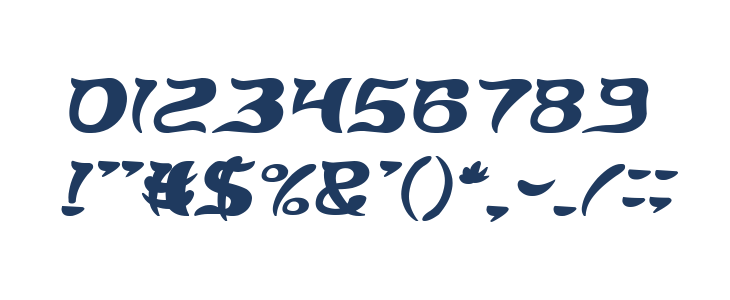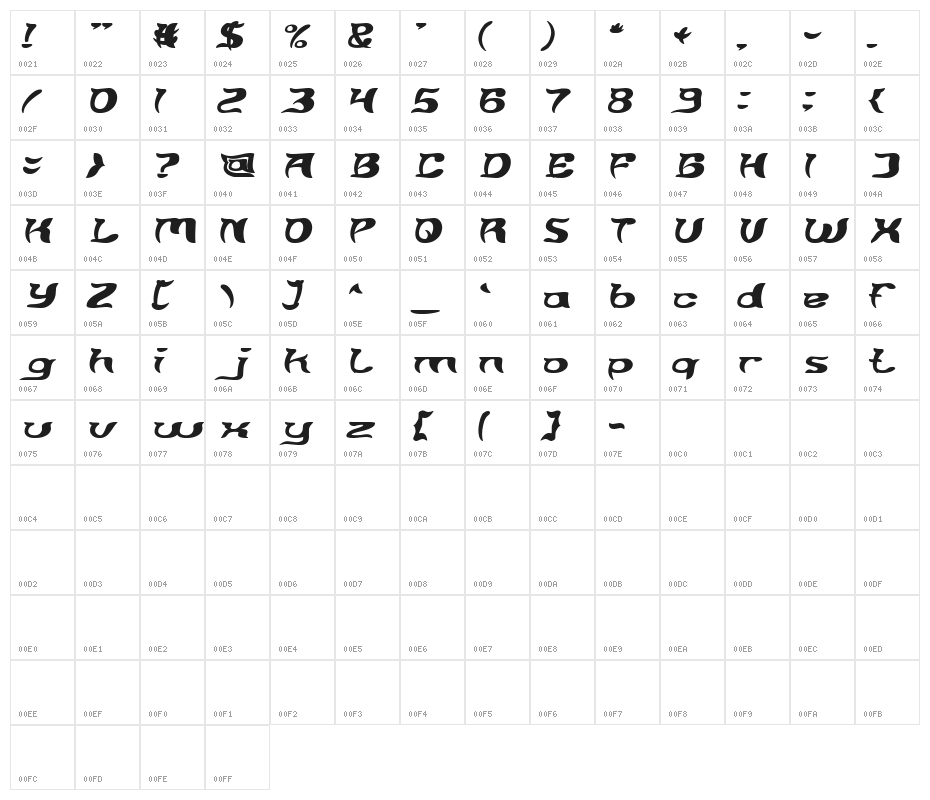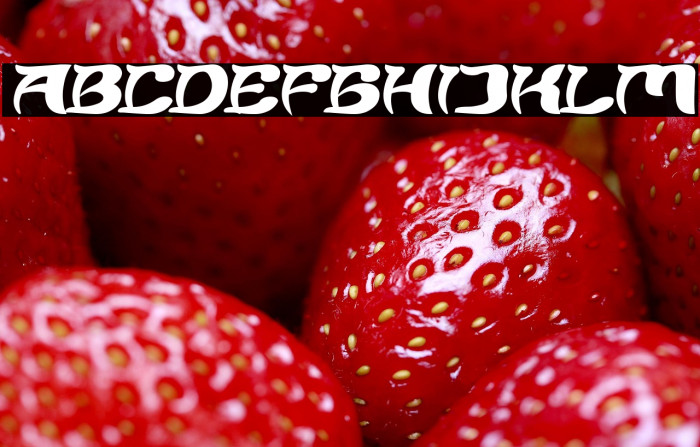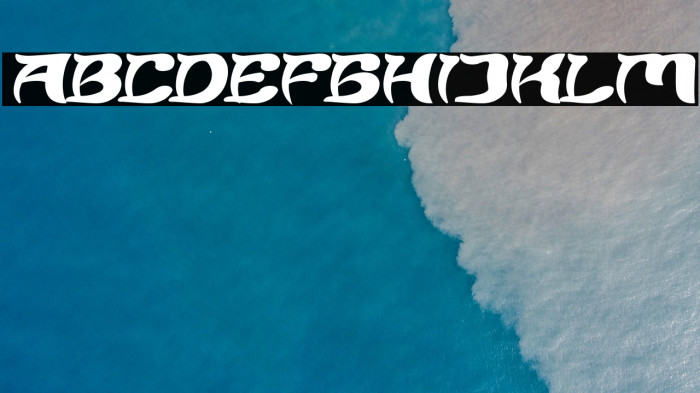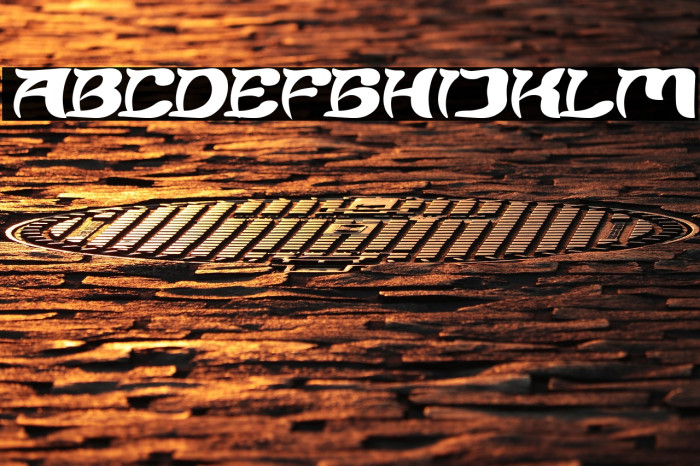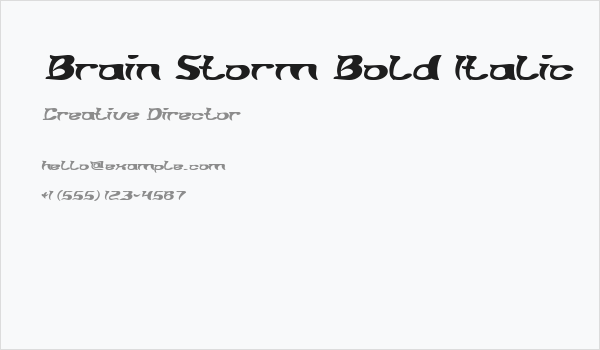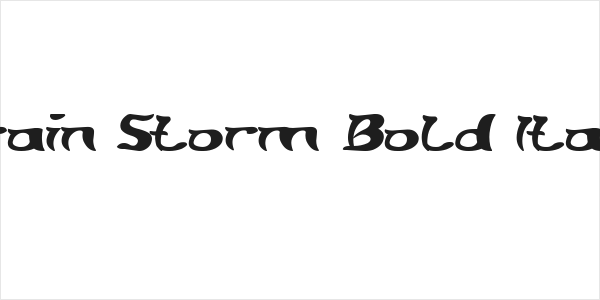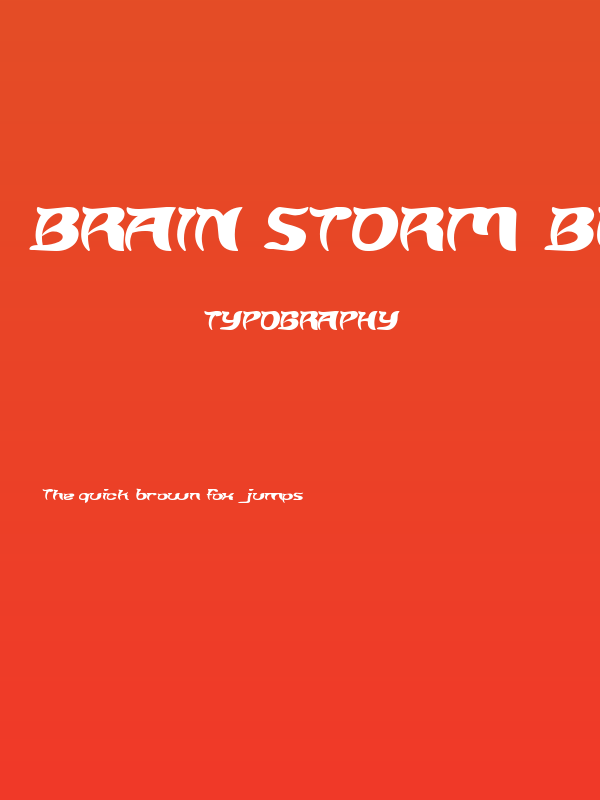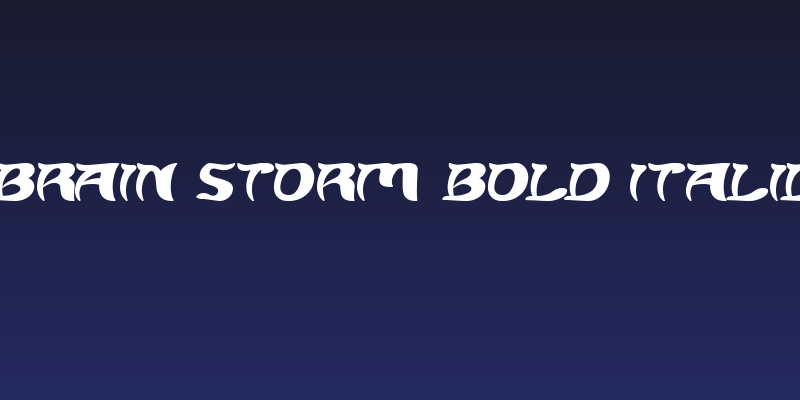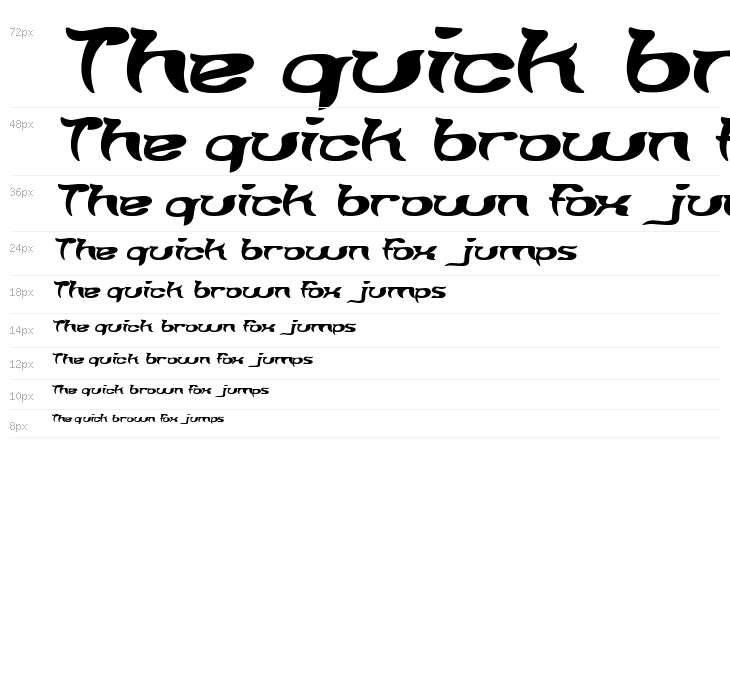
Brain Storm Bold Italic Font
Brain Storm Bold Italic Description
This font features a bold and italicized style with a unique, artistic flair. The characters exhibit a dynamic flow with sharp, angular edges and a slightly aggressive appearance. The uppercase letters are particularly striking, with exaggerated curves and strokes that give them a sense of movement. The lowercase letters maintain a consistent style, complementing the uppercase with their own distinct shapes. Numbers and special characters are designed to match the overall aesthetic, ensuring a cohesive look across all text. This font's boldness and italicization make it stand out, perfect for creative and eye-catching designs.
| Overall Style | Modern, Artistic |
| Proposed Projects | Ideal for posters, album covers, branding, and any project requiring a bold, artistic touch. |